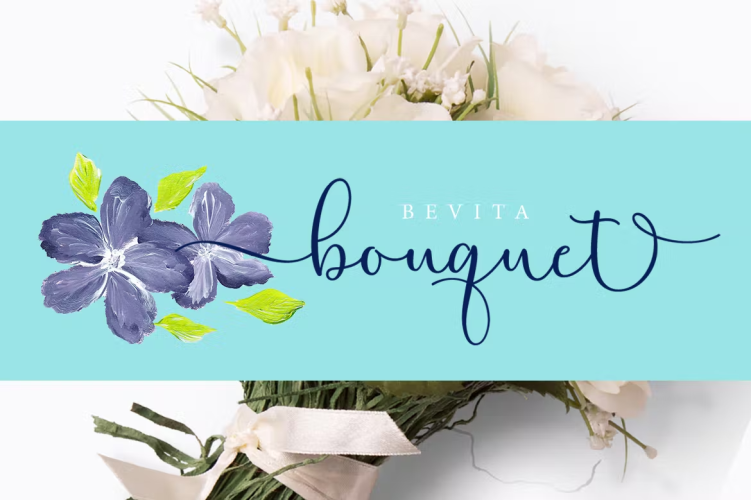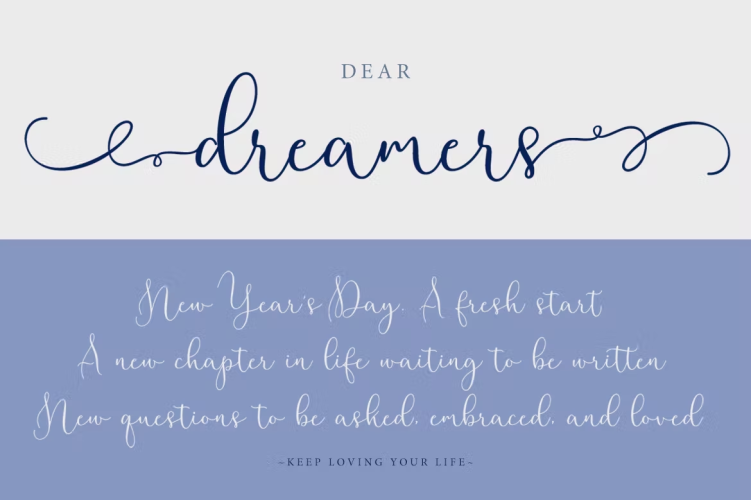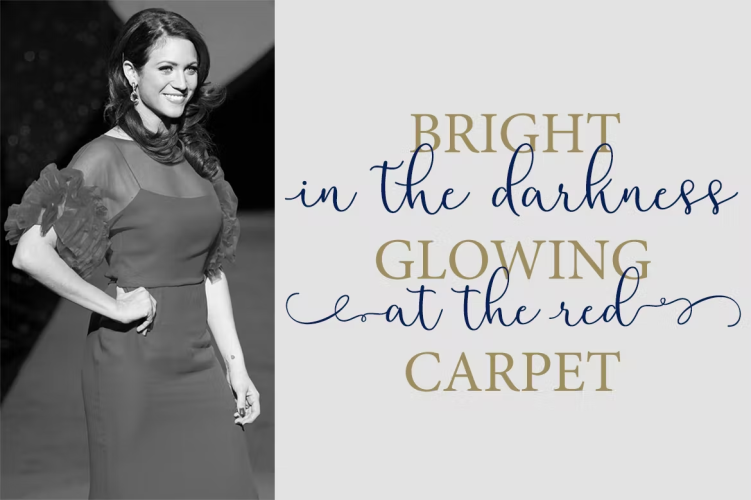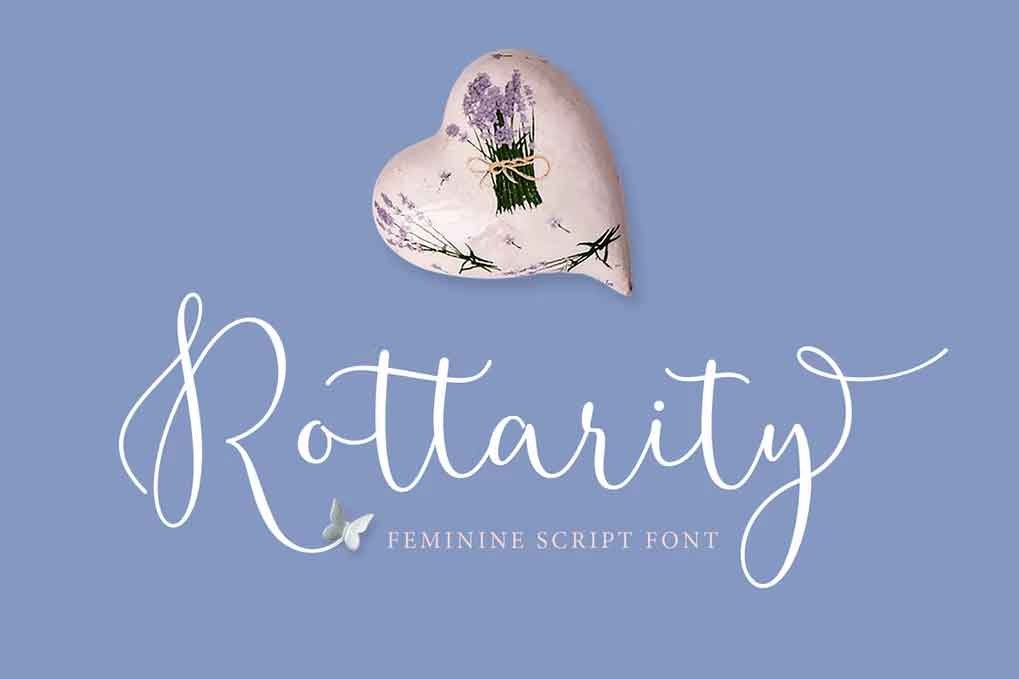
Rottarity Feminine Font
Rottarity Feminine, connecting script, designed to convey elegance and style. It is slender, feminine and friendly, let alone sexy. Rottarity Feminine will work perfectly for fashion, e-commerce brands, trend blogs, or any business that wants to appear classy and chic.
The font is ideal for high-end logotypes and magazine headlines, but let’s not forget greeting cards, invitations, posters, ads and the various web usages.
When it comes to the glyph set, well, Rottarity Feminine has quite a lot of that (639+ glyphs) – think multiple languages, swashes and stylistic alternates to unleash your creativity. For all pragmatists out there, there is also a basic version of the font with an extended latin glyph set (no swashes, contextual alternates or stylistic sets).
A short phrase in Rottarity Feminine Font carries warmth that a typeset sans cannot fake; keep the rest of the card plain.
Chalkboard-style headings in Rottarity Feminine Font make a menu feel hand-made. Keep the dish descriptions in a simple face so prices stay readable.
One line of Rottarity Feminine Font over a photo is enough; the script carries the tone and the caption does the work.
What kind of work does Rottarity Feminine Font suit?
It sits in the Script And Handwritten group and reads as branding, elegant, friendly, headlines. That makes it a candidate wherever those qualities help: headings, packaging, social graphics and brand work. Set it at the size you plan to use before deciding.